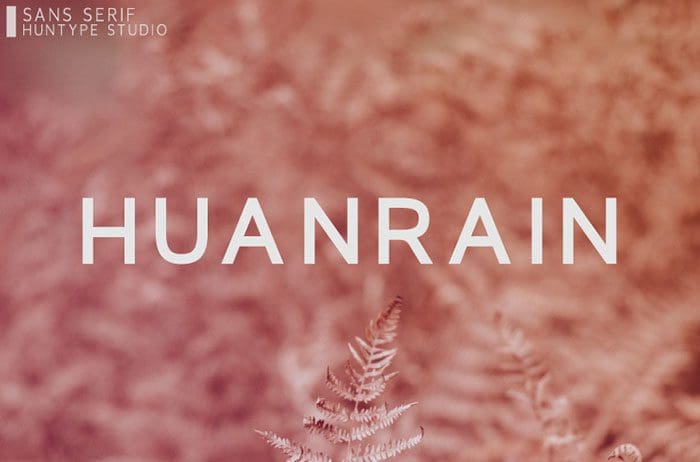
Huanrain Sans Serif Font
Huanrain Sans Serif Font feels equally charming and elegant. This elegant sans serif font is perfect for making original and outstanding designs. Thanks to Mas Anis for sharing this font! Take a look at this portfolio for more of his stunning fonts.